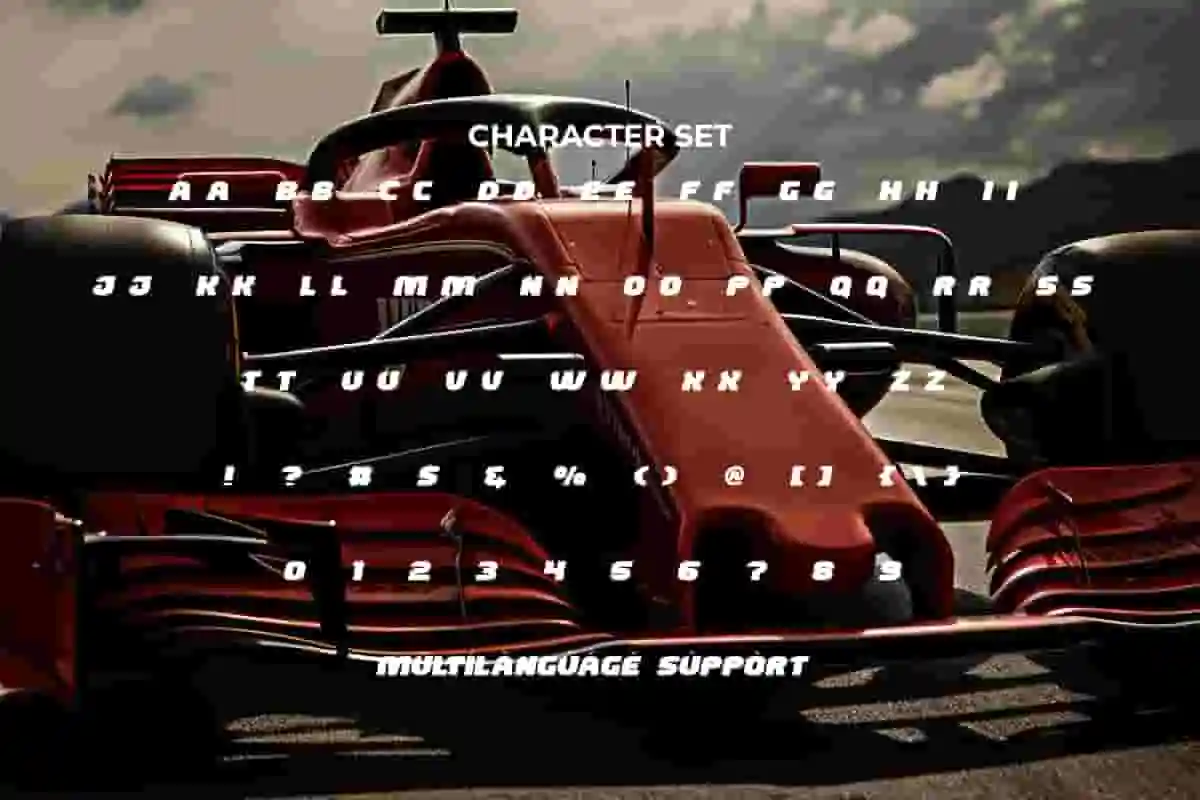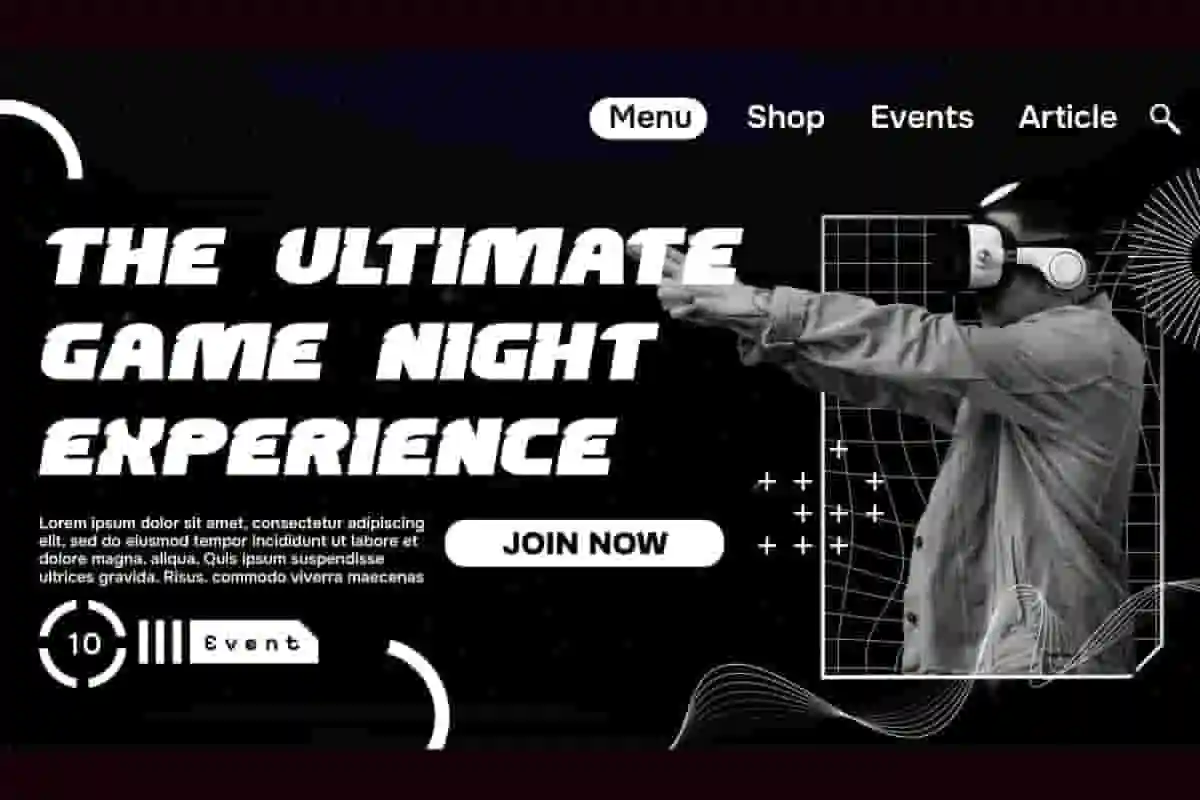
Game Score Font is a speedy big fat strong gaming fighting racing display font by NoahType. This font has a unique shape so that it has its own characteristics and can be read clearly. It will be perfect for any projects, such as custom design, invitation, label, brand image, cover, menu, poster, printing, product packaging, quotes, signage, website, and many more!
Game Score Font includes full set of ALL CAPS for Uppercase and Lowercase Basic Characters, Numerals, Punctuation, and Symbol. This racing font will make your design standout and also a perfect choice for many industries, such as automotive, sports, game, racing, fashion, movie, accessories, advertising, art, café, event or festival, printing, publishing, etc.